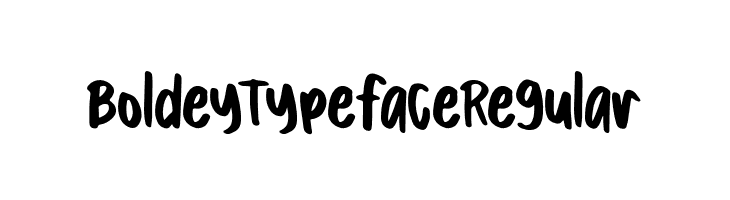
( Fonts by Etik Fatimah )
Playful handwritten-style font.
( Fonts by Graphix Line Studio )
Playful handwritten sans-serif font.
( Fonts by Graphix Line Studio )
Playful handwritten script font.
( Fonts by Bluestype Studio )
Playful and elegant handwritten script font.
( Fonts by La Matrice )
Elegant cursive script with a handwritten feel.
( Fonts by Origin Type )
Casual handwritten font with a playful style.
( Fonts by Etik Fatimah )
Playful handwritten font with a modern style.
( Fonts by Sivaporn Yutitham )
Playful handwritten font with rounded edges.
( Fonts by Origin Type )
Playful, rounded handwritten font.
( Fonts by Storytype Studio )
Elegant and decorative script font.
( Fonts by Riyadh Rahman )
Elegant and flowing script font.
( Fonts by Pustudio )
Elegant cursive script font with a handwritten style.
( Fonts by Khurasan™ )
Playful handwritten font.
( Fonts by Mergotype )
Expressive handwritten script font.
( Fonts by Ikiiko Type )
Bold, handwritten script font with a casual style.
( Fonts by Letterena Studios )
Elegant handwritten script font.
( Fonts by Rvandtype )
Playful outline font with rounded edges.